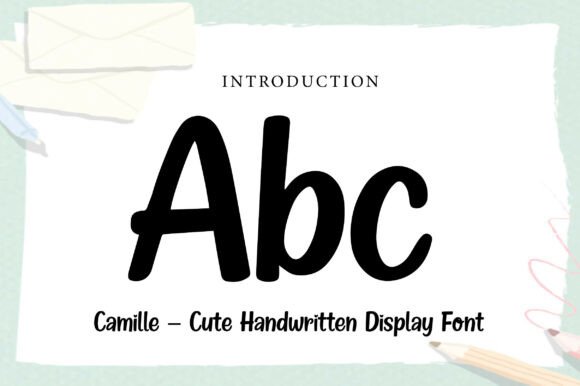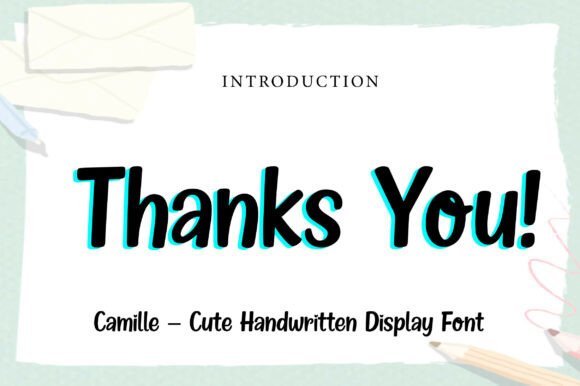
Unveil the Playful Charm of Camille Font: A Handwritten Display Typeface
In the realm of typography, few fonts manage to capture the essence of playfulness and charm as effortlessly as the Camille font. This enchanting handwritten display typeface is imbued with warmth, personality, and an unending allure that makes it a perfect addition to any design project. Sourced from the captivating world of hand-drawn illustrations, Camille showcases a delightful blend of soft rounded strokes, delicate curves, and amiable letterforms that exude an approachable, contemporary, and cheerful style.
A Fresh Compendium of Elegance and Expressiveness
Much like its name, the Camille font emerges as a fresh compendium of elegance and expressiveness, dedicated to those who prioritize creativity with a delicate touch. This font is perfect for designers and crafters who seek to add a personal touch to their work, making it an excellent choice for a wide range of projects, from brand identities to salutation cards, product wrappings, digital posters, engaging quotes, and even adorable logo brainstorming.
The Unique Characteristics of Camille Font
The Camille font boasts a unique set of characteristics that set it apart from other typefaces. Its soft rounded strokes and delicate curves give it a friendly and approachable feel, making it perfect for designs that require a personal touch. The amiable letterforms are carefully crafted to exude a sense of warmth and personality, making every use of the font a delightful experience.
The Decorative Miniature Heart: A Touch of Cheerfulness
One of the standout features of the Camille font is the decorative miniature heart that echoes an underlying tone of cheerfulness and personal affinity to the design. This charming detail adds an extra layer of endearment to every use of the font, making it perfect for designs that require a touch of whimsy and playfulness.
Flexible for Both Print and Digital Executions
The Camille font is flexible for both print and digital executions, making it a versatile addition to any designer’s toolkit. Whether you’re working on a brand identity, a digital poster, or a product wrapping, this font is sure to bring your creations to life with unmatched verve and charisma.
The Camille font audaciously welcomes designers and crafters to explore its creative possibilities. With its unique blend of elegance and expressiveness, this font is perfect for those who prioritize creativity with a delicate touch. Whether you’re a seasoned designer or a crafty DIY enthusiast, the Camille font is sure to inspire you to create something truly special.
Use Cases for Camille Font
The Camille font is perfect for a wide range of projects, including:
- Brand identities: Add a personal touch to your brand’s visual identity with the Camille font.
- Salutation cards: Create beautiful and heartfelt greeting cards with this charming font.
- Product wrappings: Add a touch of elegance and whimsy to your product packaging with the Camille font.
- Digital posters: Create eye-catching digital posters that showcase your creativity and style.
- Engaging quotes: Add a touch of personality to your quotes and sayings with this delightful font.
- Logo brainstorming: Use the Camille font to create adorable and memorable logos for your brand or business.
| Font Name | Camille Font |
| Author | T.D. House |
In conclusion, the Camille font is a unique and charming handwritten display typeface that is sure to bring a touch of playfulness and elegance to any design project. With its soft rounded strokes, delicate curves, and amiable letterforms, this font is perfect for designers and crafters who prioritize creativity with a delicate touch. Whether you’re working on a brand identity, a digital poster, or a product wrapping, the Camille font is sure to inspire you to create something truly special.